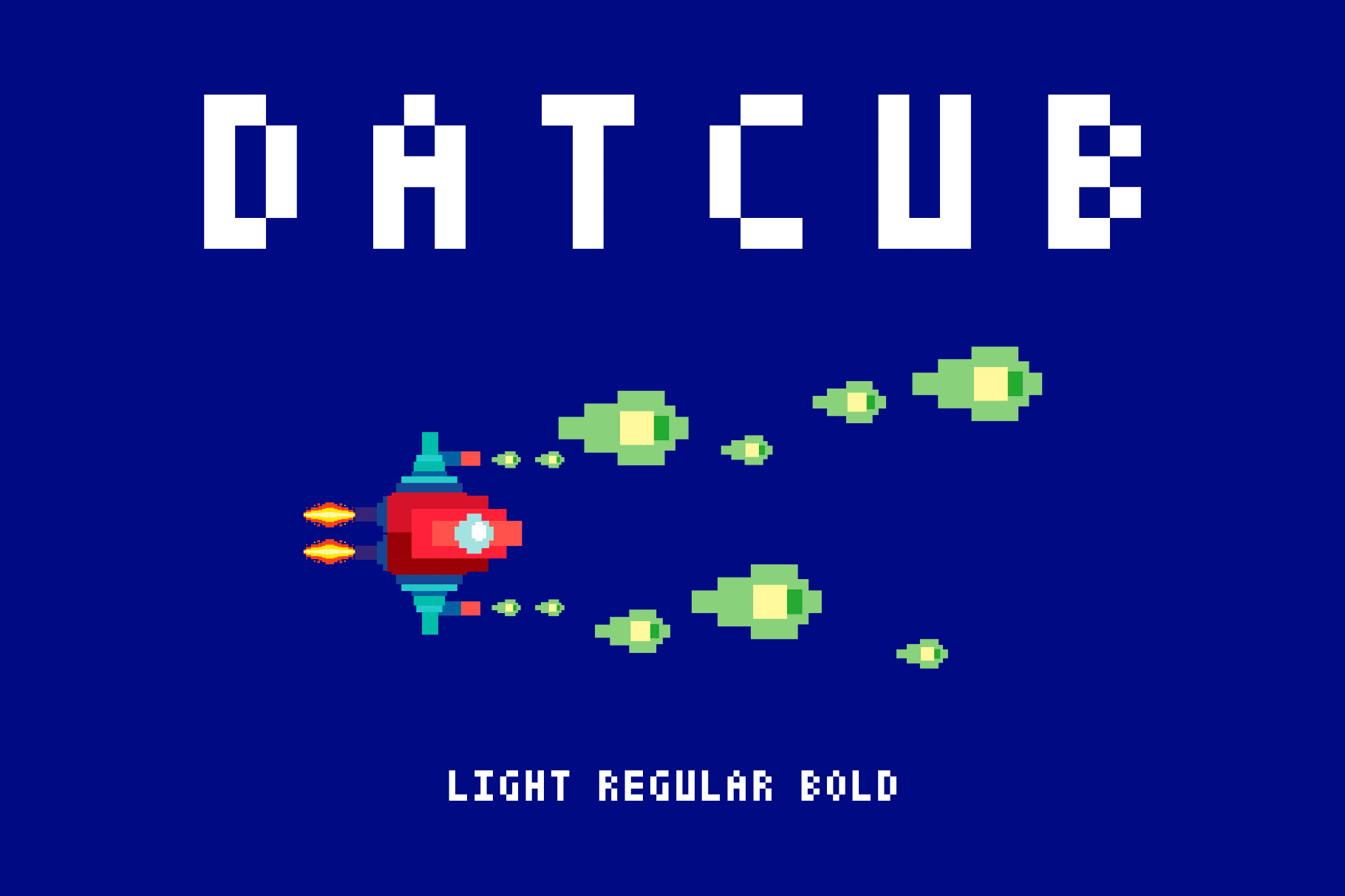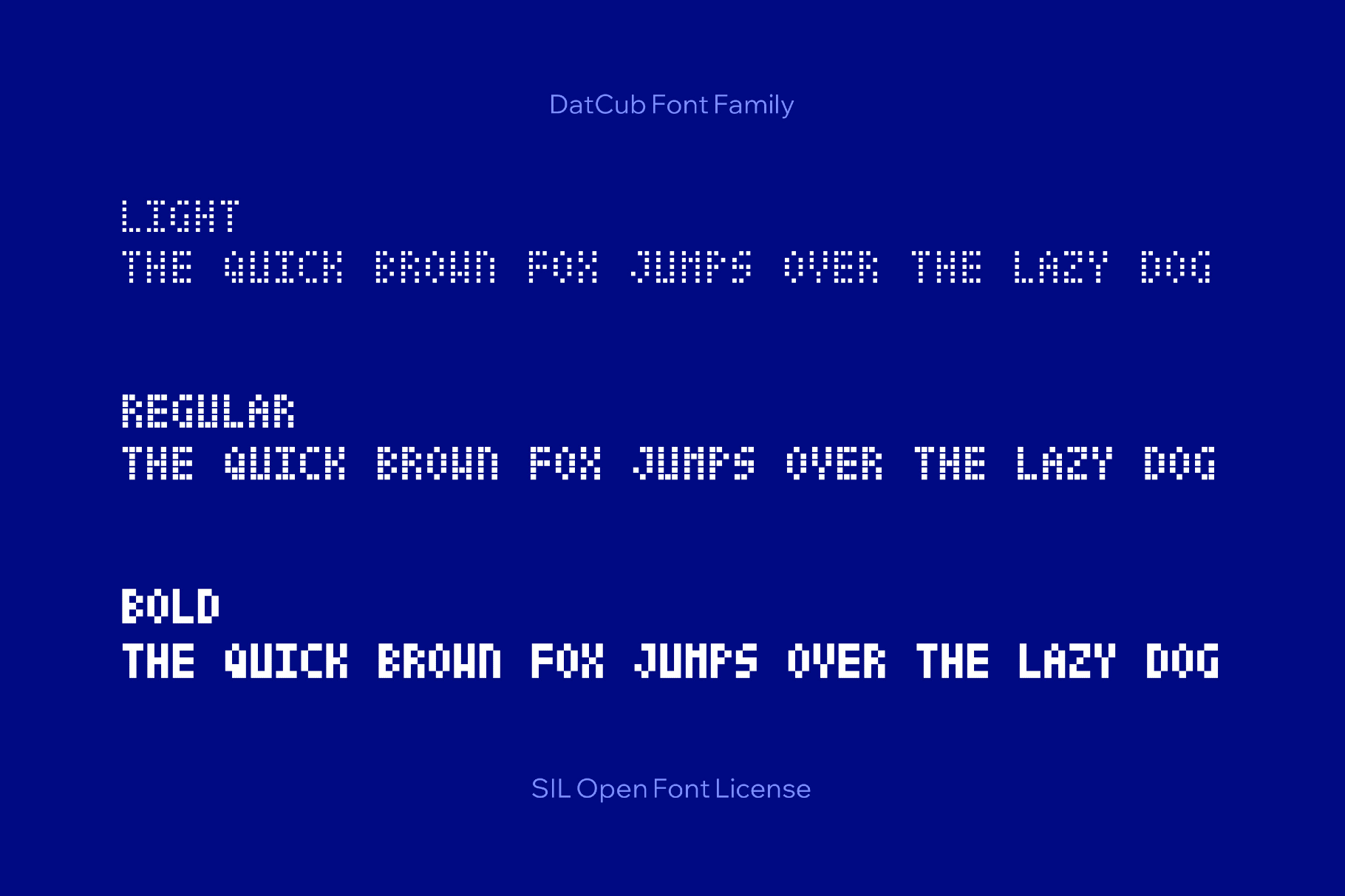
DatCub Font Family
DatCub is a square monospaced dot-matrix display font tuned to a tiny 3×5 grid. It suits sci-fi game UIs, synthwave posters, retro tech branding, and data-driven graphics. You might also use it for HUDs, menu systems, cryptocurrency or data dashboards, overlays, app mockups with an 80s control-panel vibe, and merch and editorial layouts.
- Three styles: Light, Regular, and Bold.
- Uppercase letters, numbers, punctuation, symbols, and extra symbols.
- International characters with multilingual support across extended Latin and Cyrillic scripts.